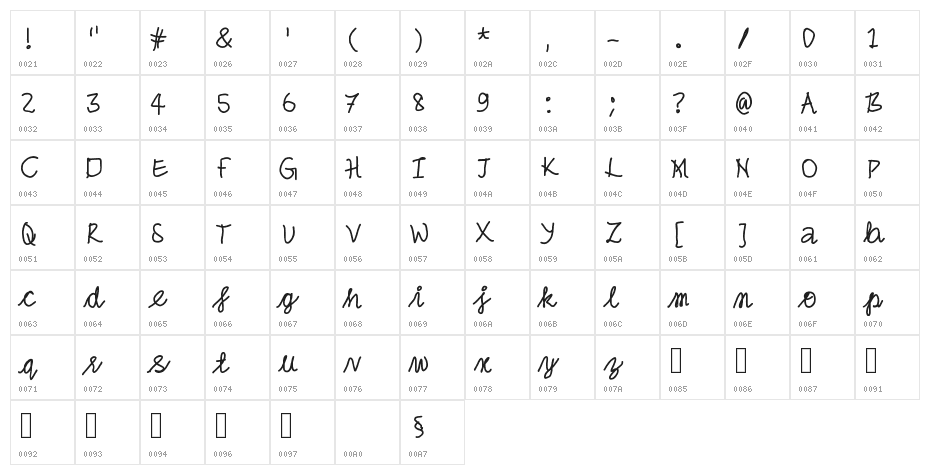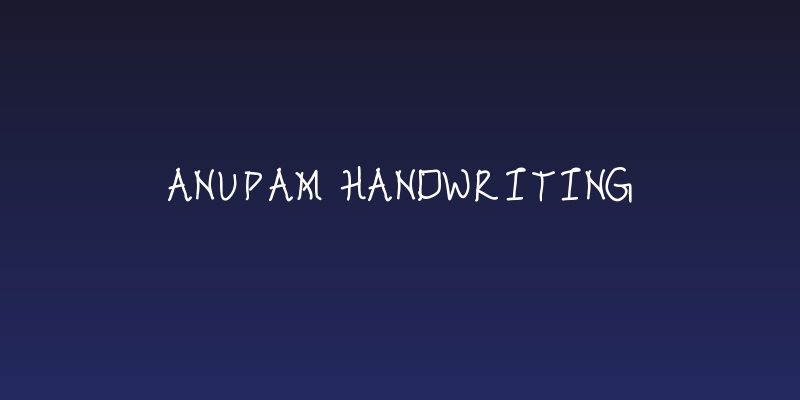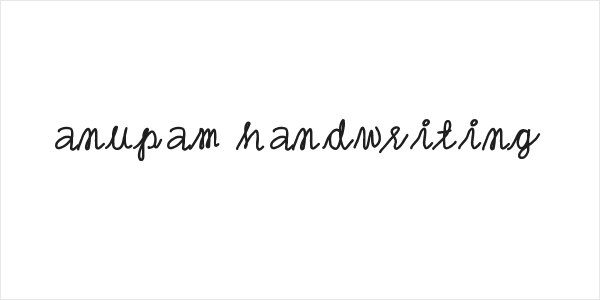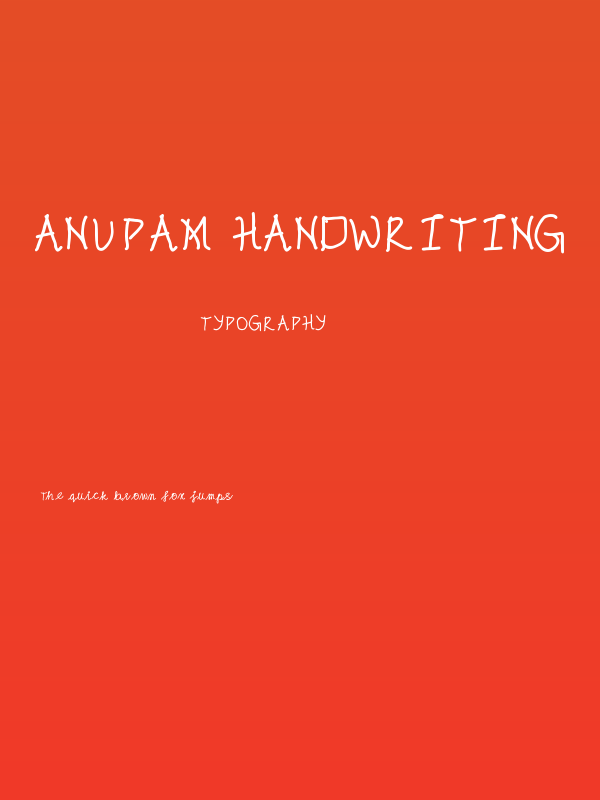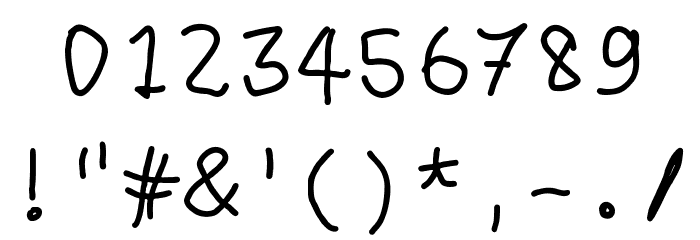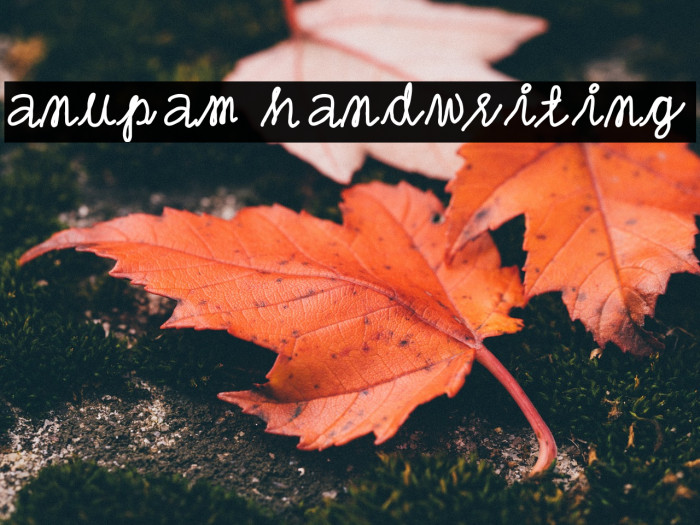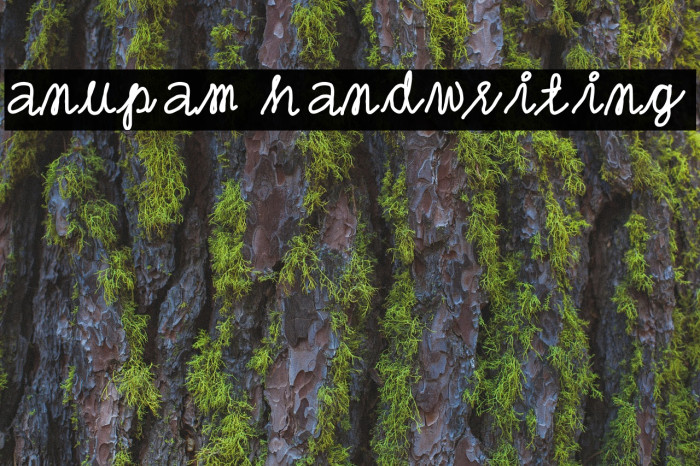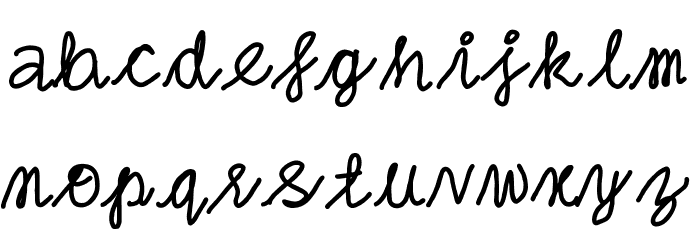
anupam handwriting Font
This font exudes a casual and personal touch, reminiscent of authentic handwriting. The characters are fluid and slightly irregular, giving it a natural and approachable feel. The uppercase letters maintain a consistent height, while the lowercase letters exhibit a charming variability in size and slant. The numbers are clear and distinct, matching the playful style of the letters. Special characters are creatively integrated, maintaining the handwritten aesthetic. This font is perfect for projects that require a personal or informal tone, such as greeting cards, personal notes, or creative projects.
| Overall Style | Casual, Personal |
| Proposed Projects | Ideal for greeting cards, personal notes, invitations, and creative projects. |